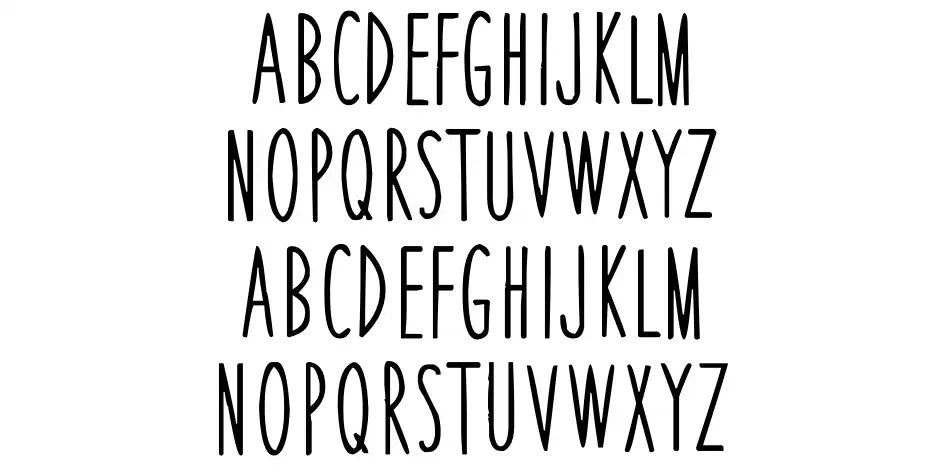
What Is The Thinnest Font
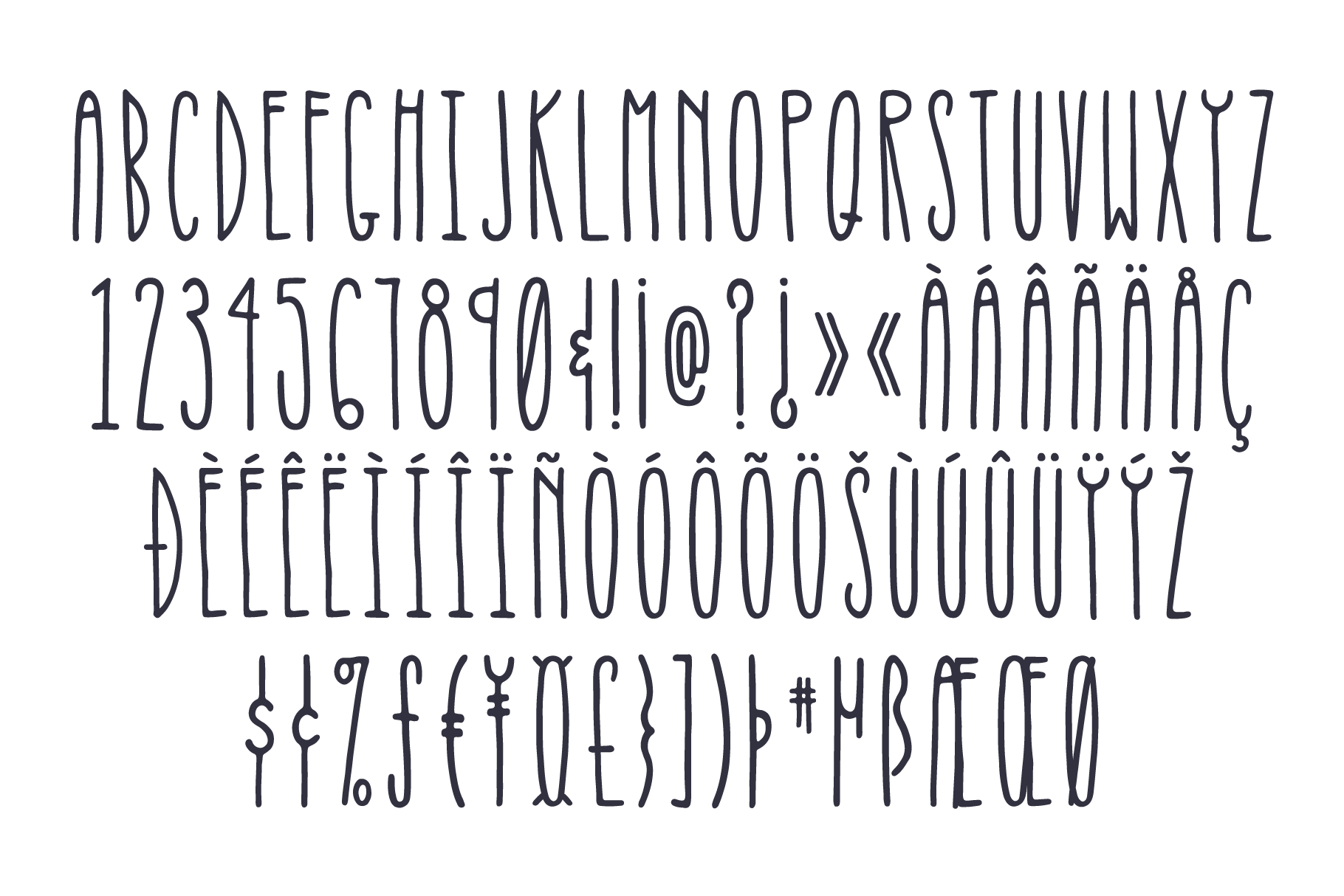
Need a thinnest english font (all types). Every font is free to download! These thin fonts are extra light.
If you’re looking for a font that has a minimal and skinny letter design, this font is made just for you. Digital ad 29 29.00 29. The enlarged screenshot below shows what my folder labels basically look like when i have adjusted my pc for best performance.it looks pretty bad this way but may help optimize a pc’s performance to a.
If You Recognize The Font From The Samples Posted Here Don't Be Shy And Help A Fellow Designer.
Although We Have The Largest Database Of Fonts, The Search For A Font From An Image Gets Mixed Results Like The Image Above.
The dymaxion script font is beautiful and airy, promising to deliver the perfect elegant touch. Thousands of designers (famous or not) use the image font detection system to find a font or similar free fonts from an image. 100 free fonts alternatives to.
Slab Serifs Are Also One Of The Thin Font Types Out There.
Every font is free to download! Use it for branding, social media, quotations, and more. When thin fonts come to mind, they often elicit images of dainty, flowing typography.
We Are Pleased To Introduce A Unique Extension To Our Kohinoor Typefaces.